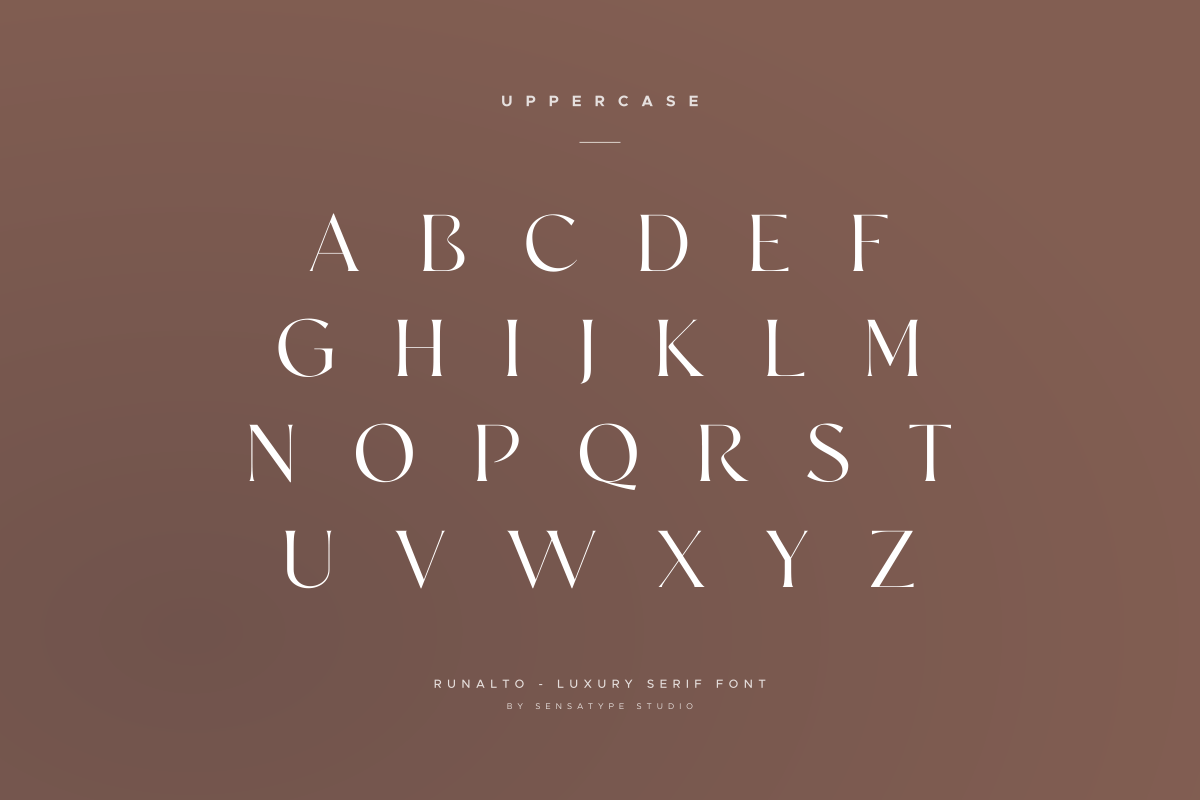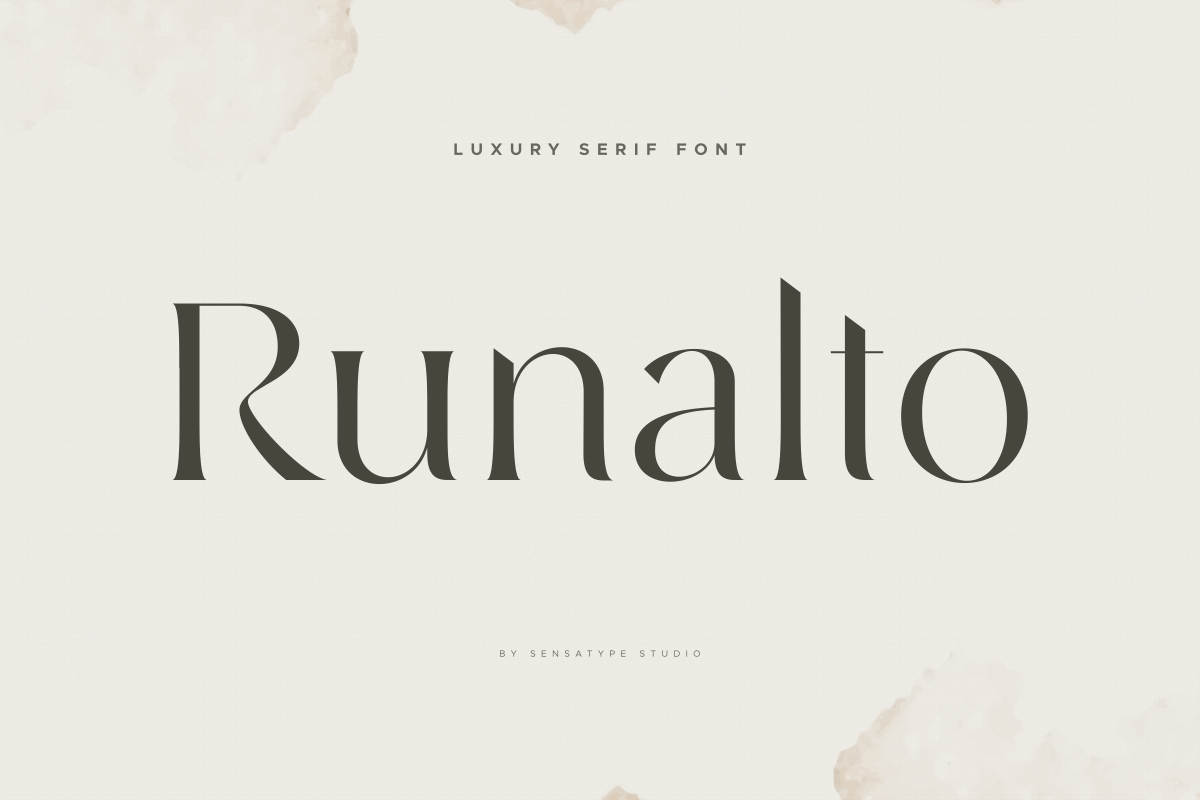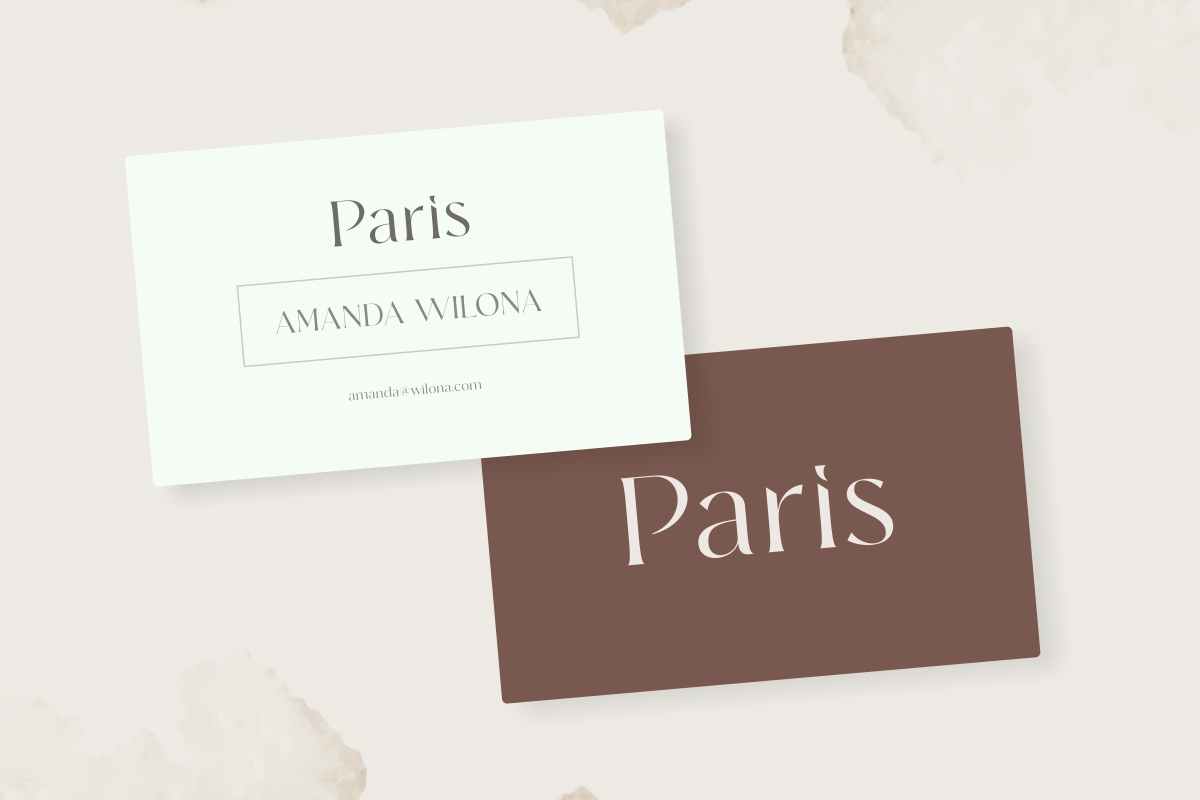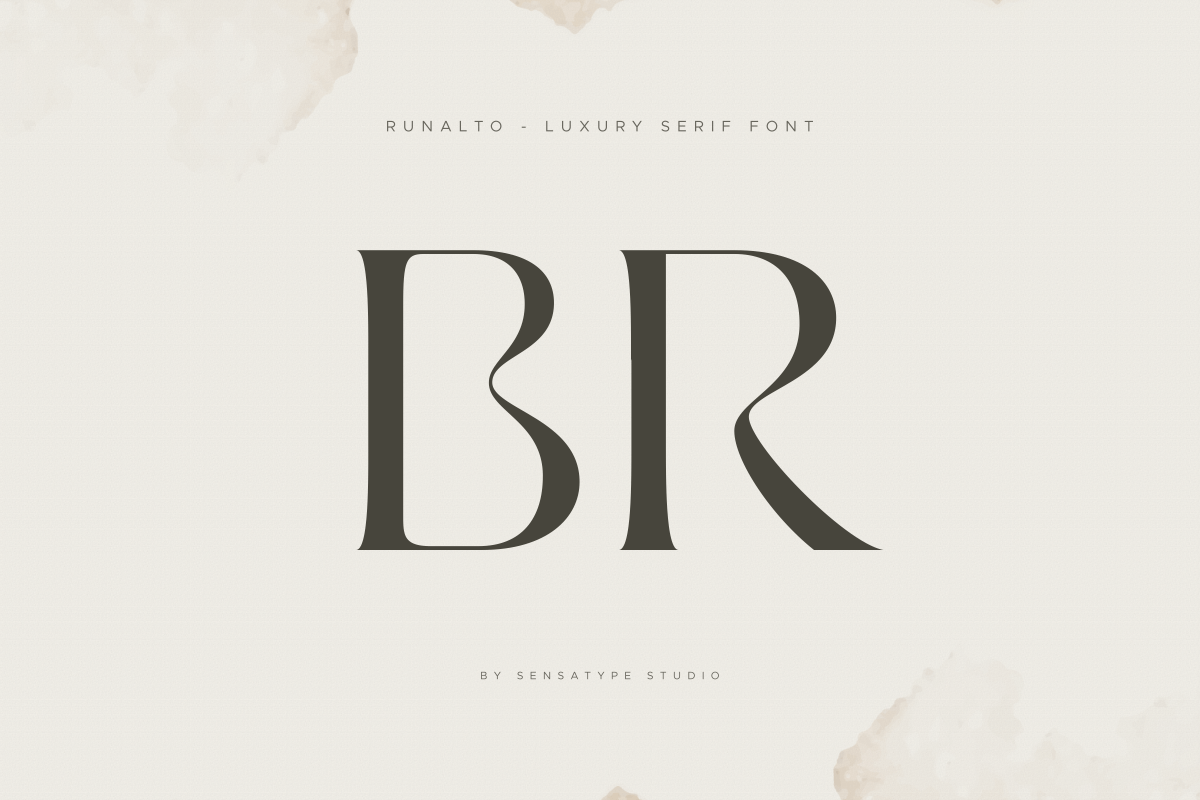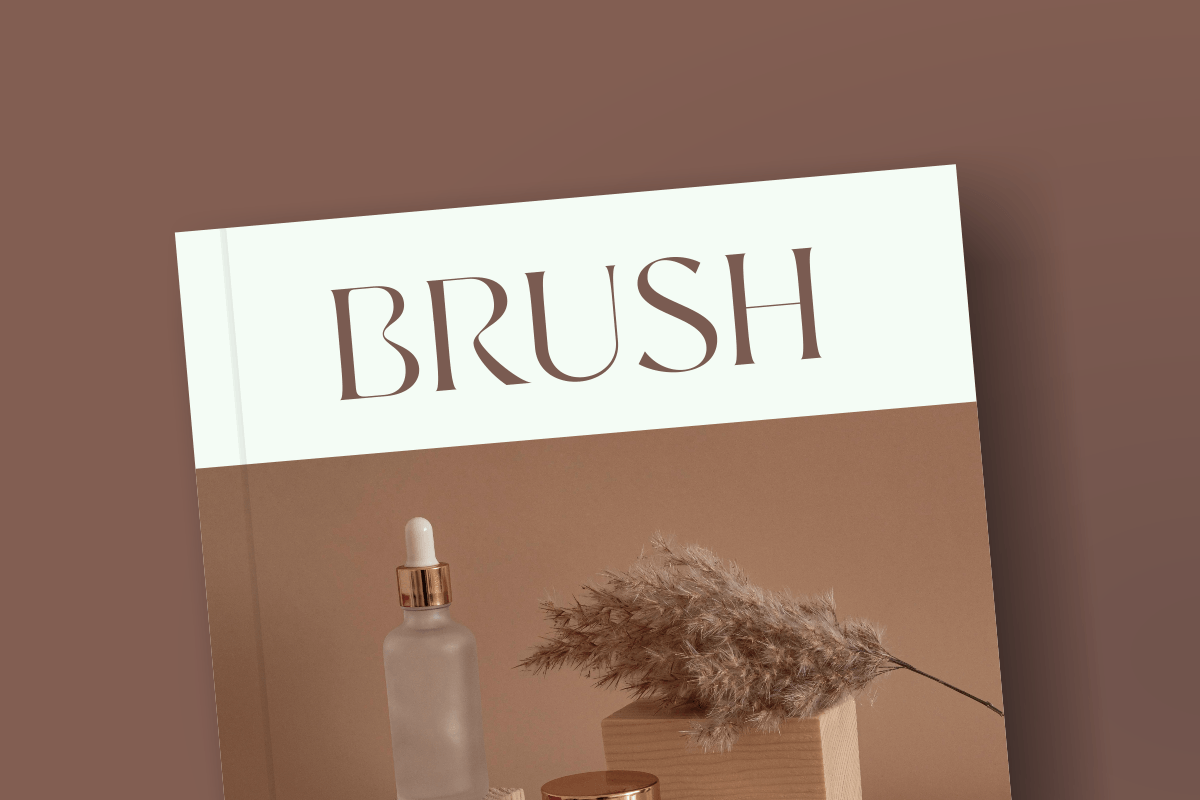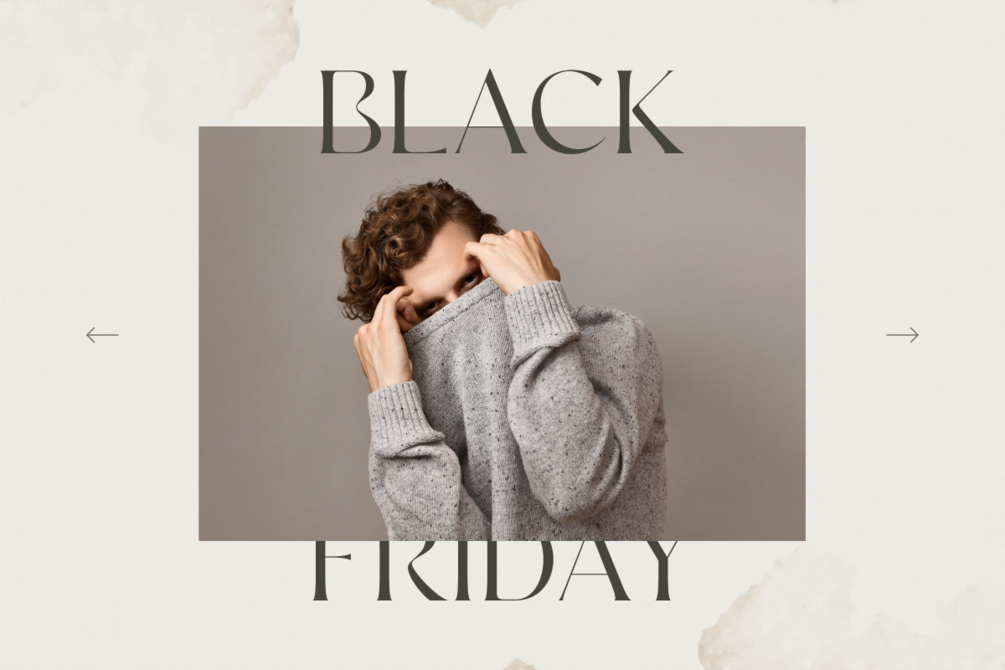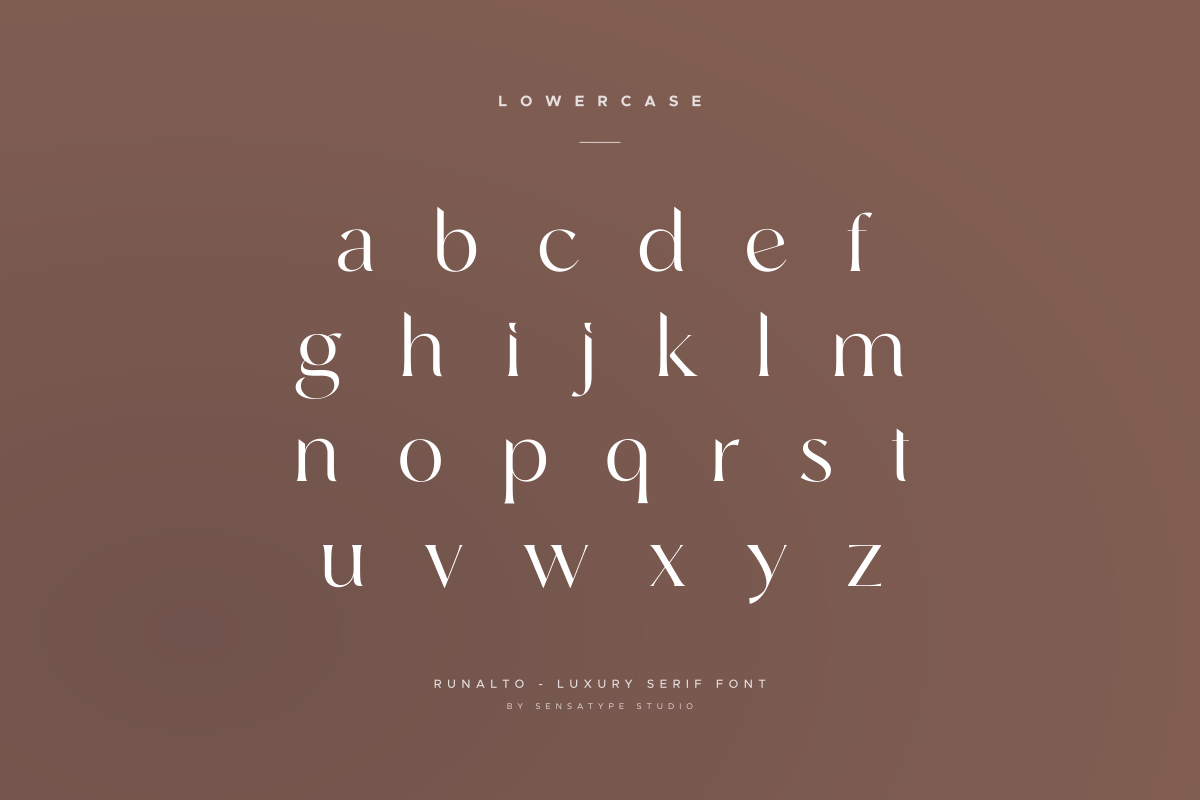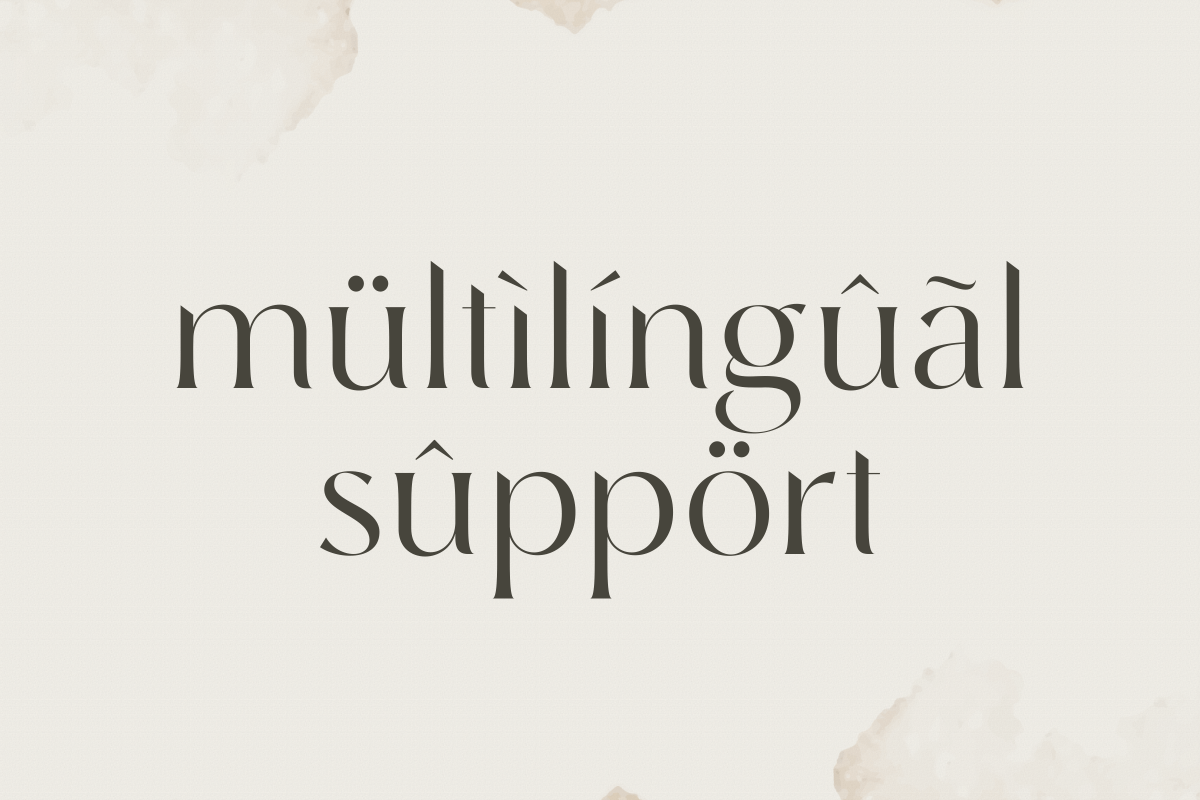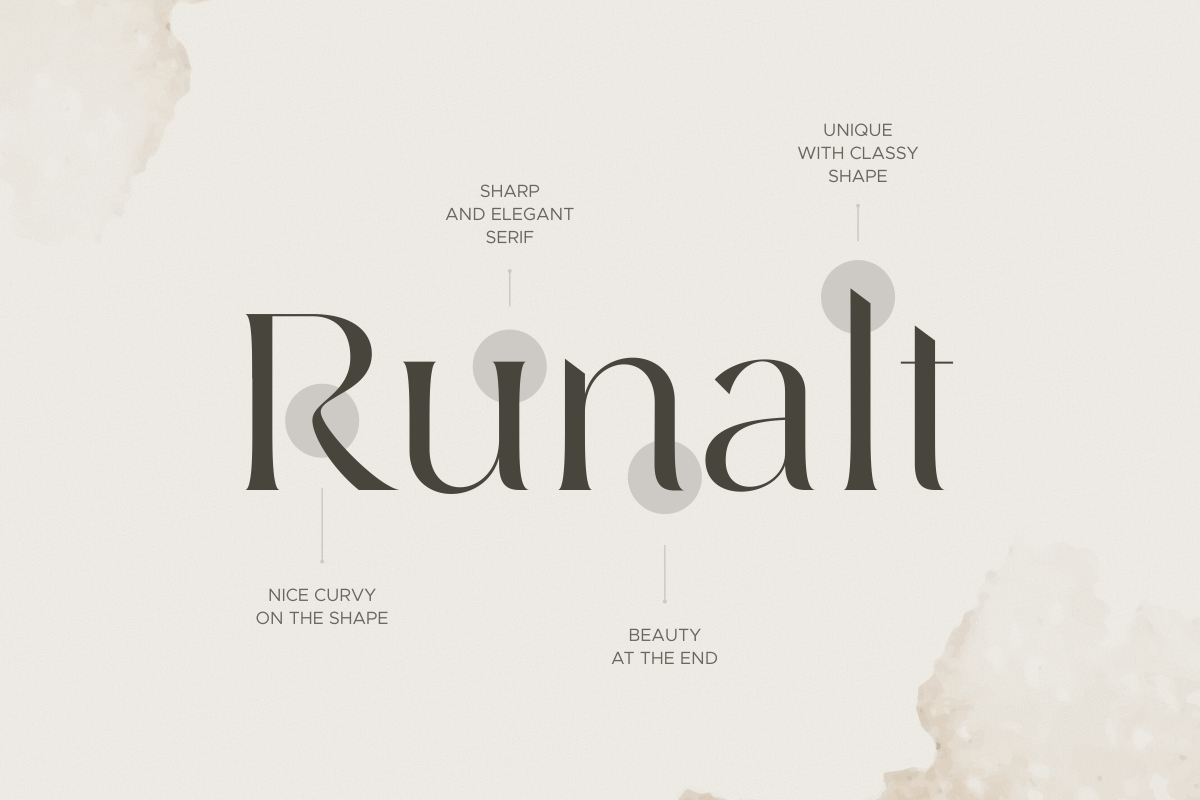
Runalto - Luxury Font
Runalto is a luxury font designed to bring elegance and sophistication to your creative projects. Its refined letterforms make it ideal for premium branding, logos, invitations, packaging, and editorial designs.
Blending style with readability, Runalto elevates your designs with a polished and professional aesthetic. Suitable for both digital and print applications, this font adds a high-end, luxurious touch to every project.
Runalto – Luxury Font Features
• Elegant and sophisticated character set
• Stylish, refined, and professional design
• Includes uppercase, lowercase, numerals, and punctuation
• Perfect for digital and print projects
• OpenType features for versatile typography
• Multilingual support